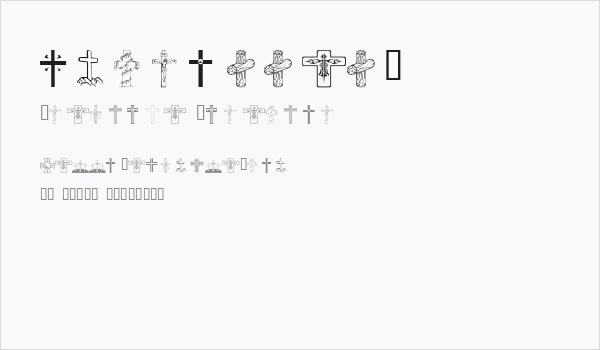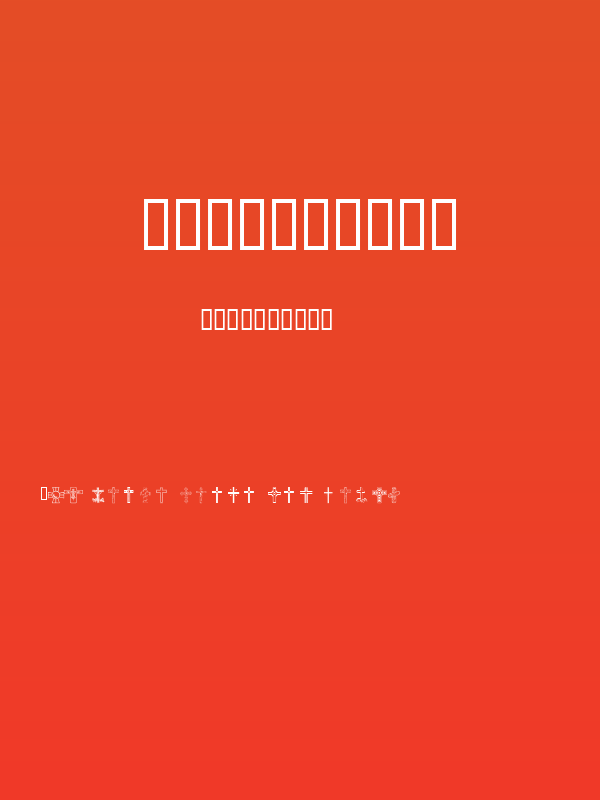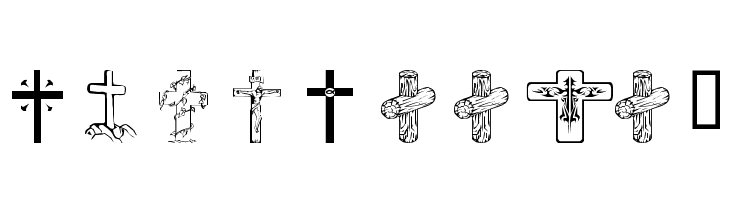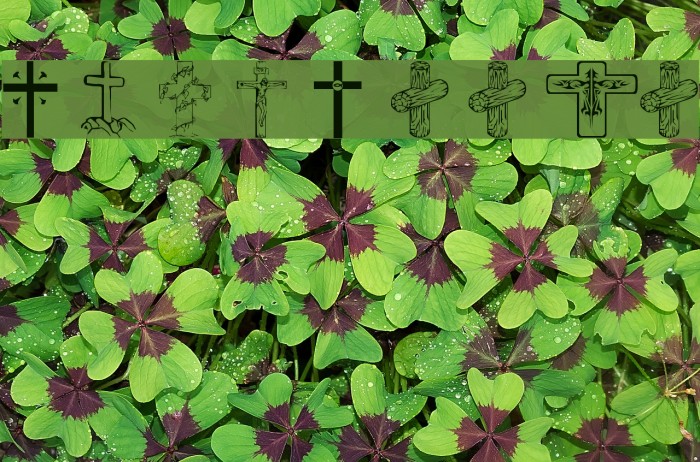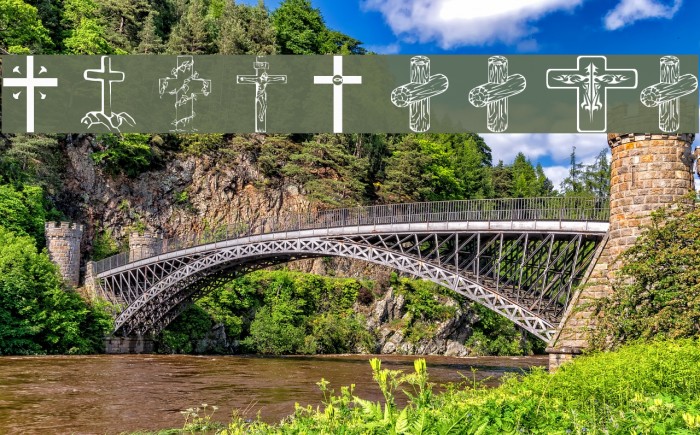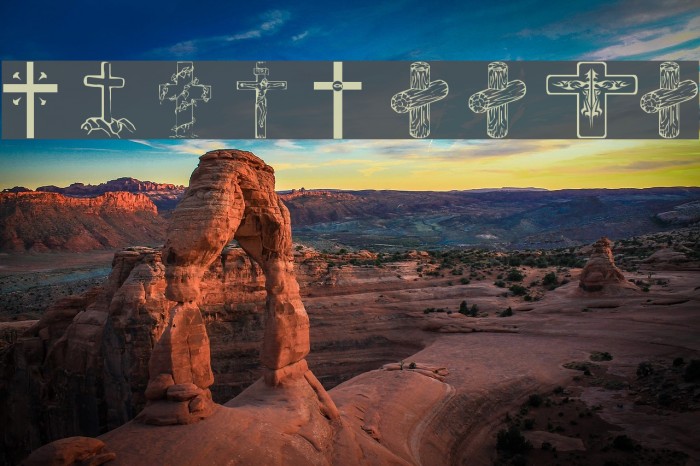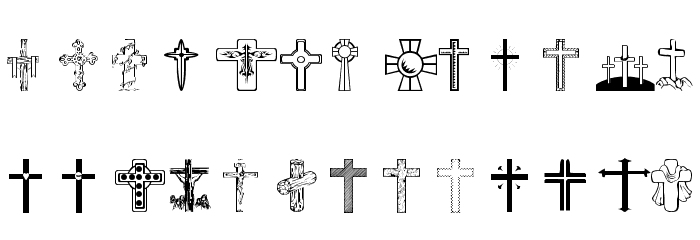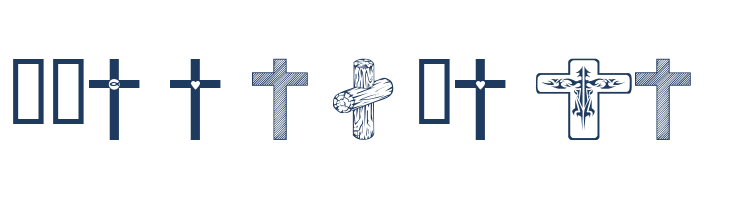
wmcrosses1 Font
wmcrosses1 Description
A decorative dingbat font featuring a variety of cross illustrations, including ornate, simple, and thematic designs, some with additional religious motifs such as angels and landscapes.
| Overall Style | Decorative, Thematic, Religious |
| Use Case | Symbols, Decorative elements, Themed graphics |
| Proposed Projects | Religious event flyers, church bulletins, Easter cards, memorial programs, decorative borders. |